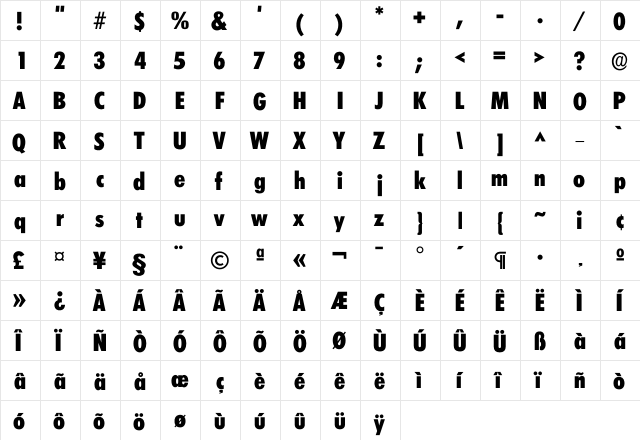
Climerick ExtraBold
Design Context for Climerick Typeface
Climerick offers clean, dependable letterforms without strong stylistic allegiance, making it a practical choice for designers who need flexibility. The heavy weight commands attention and anchors typographic hierarchies.